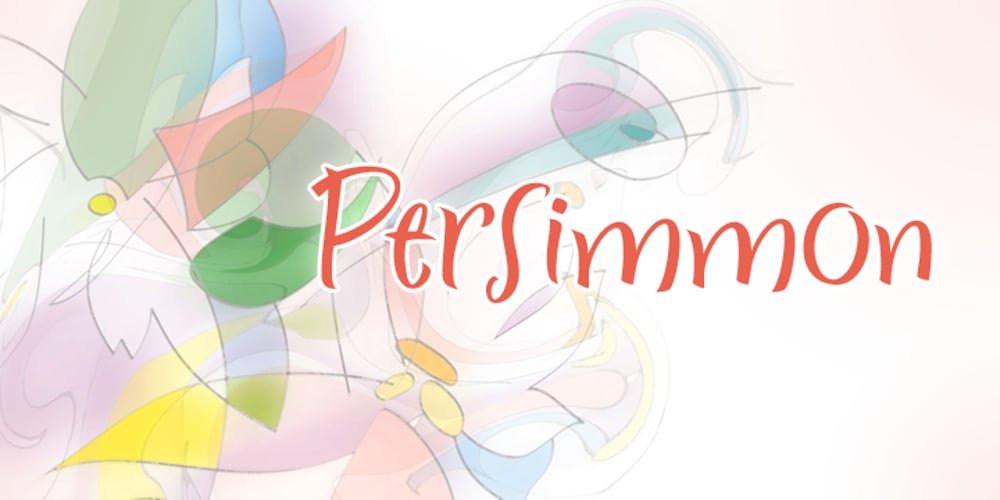
Persimmon Font Family was designed by Ronna Penner and published by Typadelic. Persimmon contains 1 styles and family package options. Persimmon is elegant and semi-formal with some very unusual letter shapes. Calligraphic in nature, Persimmon can be used where you want a distinctive and unique lettering style.